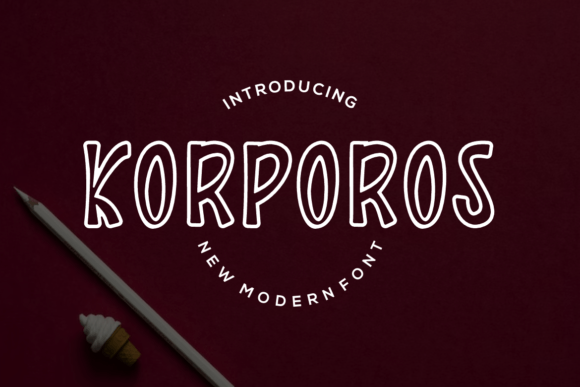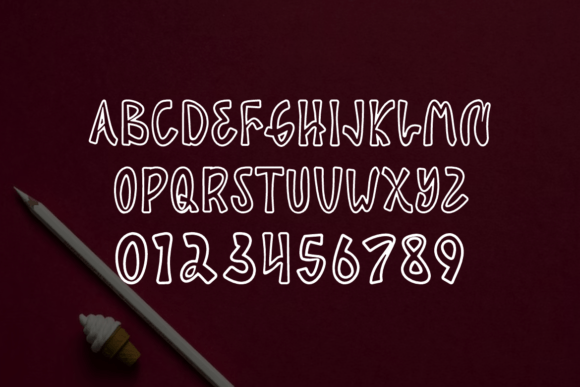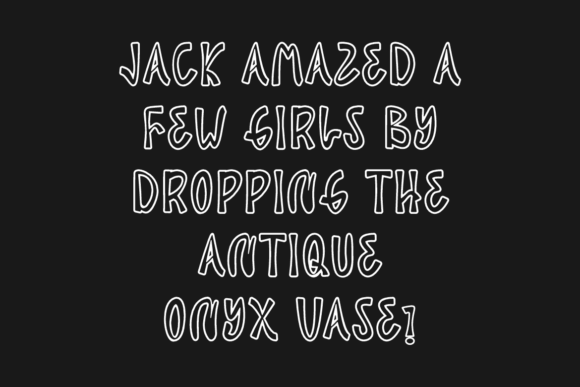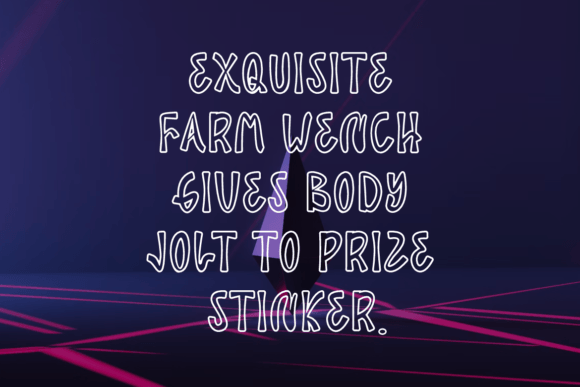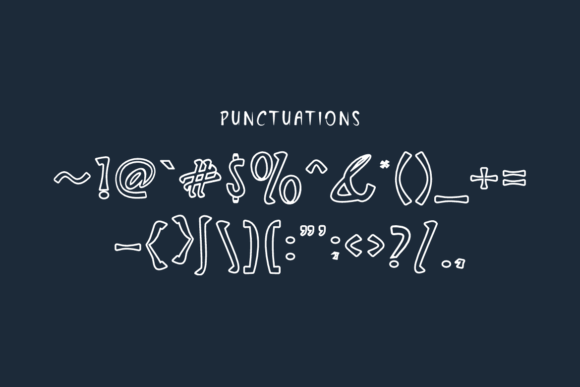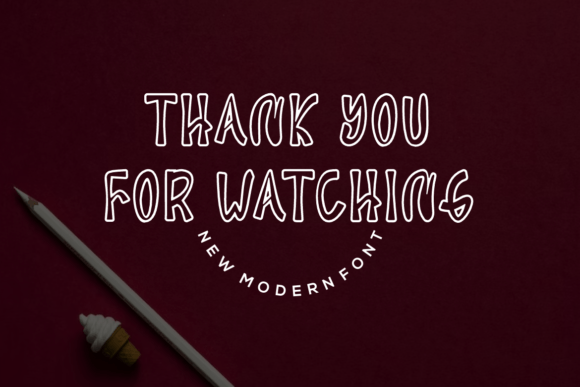
Introduction to Korporos Font
As a designer, you know that the right font can elevate even the most mundane project into something truly special. I still remember the thrill of discovering a new font that perfectly captured the essence of my creative vision. And that’s exactly what happened when I stumbled upon the Korporos Font – an outlined display font that exudes elegance, sophistication, and a touch of modern flair.
Whether you’re working on a high-end branding project or a simple typography quote, the Korporos Font is a valuable design resource that’s sure to deliver. Its clean lines, transparent background, and high-quality design make it an ideal choice for a wide range of creative projects. And the best part? It’s available for free download, making it an accessible design resource for designers of all levels.
- High-quality design: Korporos Font is a premium font suitable for creative projects, offering a unique and stylish look.
- Transparent background: This font features a transparent background, making it easy to combine with any background image or color.
- Size and resolution: The font comes in 3 different sizes (Regular, Bold, and Italic) and has a high-resolution design, suitable for both web and print projects.
- Unique characteristics: Korporos Font features a unique blend of modern and vintage elements, making it perfect for creative projects that require a distinctive look.
- Perfect for design projects: Korporos Font is an excellent design resource for designers, artists, and creatives working on various projects, from branding to advertising.
Honest Review: Korporos Font
As a designer, I’m always on the lookout for high-quality fonts that can elevate my creative projects. I recently stumbled upon the Korporos Font, and I must say, it’s a game-changer. ✨ The font is a fantastic addition to any design resource, and its transparent background makes it a versatile option for any design project.
- May not be suitable for very large text sizes due to its modern design
- Not as extensive a font family as some other options
Overall, I’m impressed with the Korporos Font. It’s a great addition to any design resource, and its transparent background makes it a versatile option for any design project. If you’re looking for a high-quality font to add some modern flair to your designs, I’d definitely recommend giving the Korporos Font a try. ⚠️ Just be aware of its limitations, and use it accordingly.
The Korporos Font is ideal for various design projects, including:
– Creating a logo for your business
– Designing a brochure or flyer
– Developing a website or landing page
Open Sans is a popular and highly versatile font that can be used for a wide range of creative projects. It features a clean and transparent background, making it perfect for designs that require a high level of readability. Open Sans is a free download and can be used for both personal and commercial projects. Compared to Korporos Font, Open Sans has a more open feel and is better suited for body text.